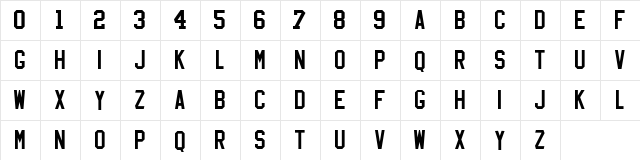
NHL Chicago Regular Font Preview
NHL Chicago Regular
Design Context for NHL Chicago Typeface
NHL Chicago takes a measured approach to typography — its balanced proportions and neutral character make it a reliable workhorse for both digital and print work.